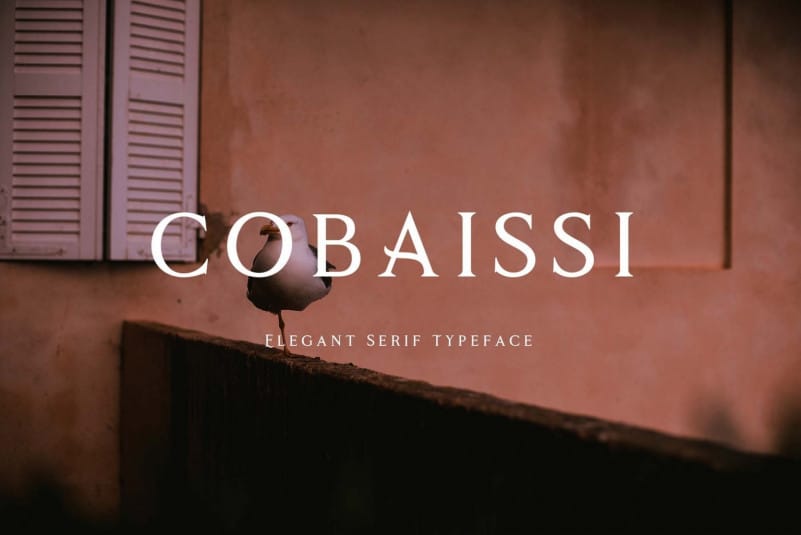
Cobaissi Serif Font Free
Cobaissi Serif Font is a stylish modern serif font. It’s soft curves mixed with high contrast glyphs lend it self to both feminine and masculine qualities. Cobaissi works great in layout design for quotes or body copy.
The Elegant curves also make for a unique logo or masthead. Cobaissi comes with multilingual support also. This font is free for PERSONAL AND COMMERCIAL USE.